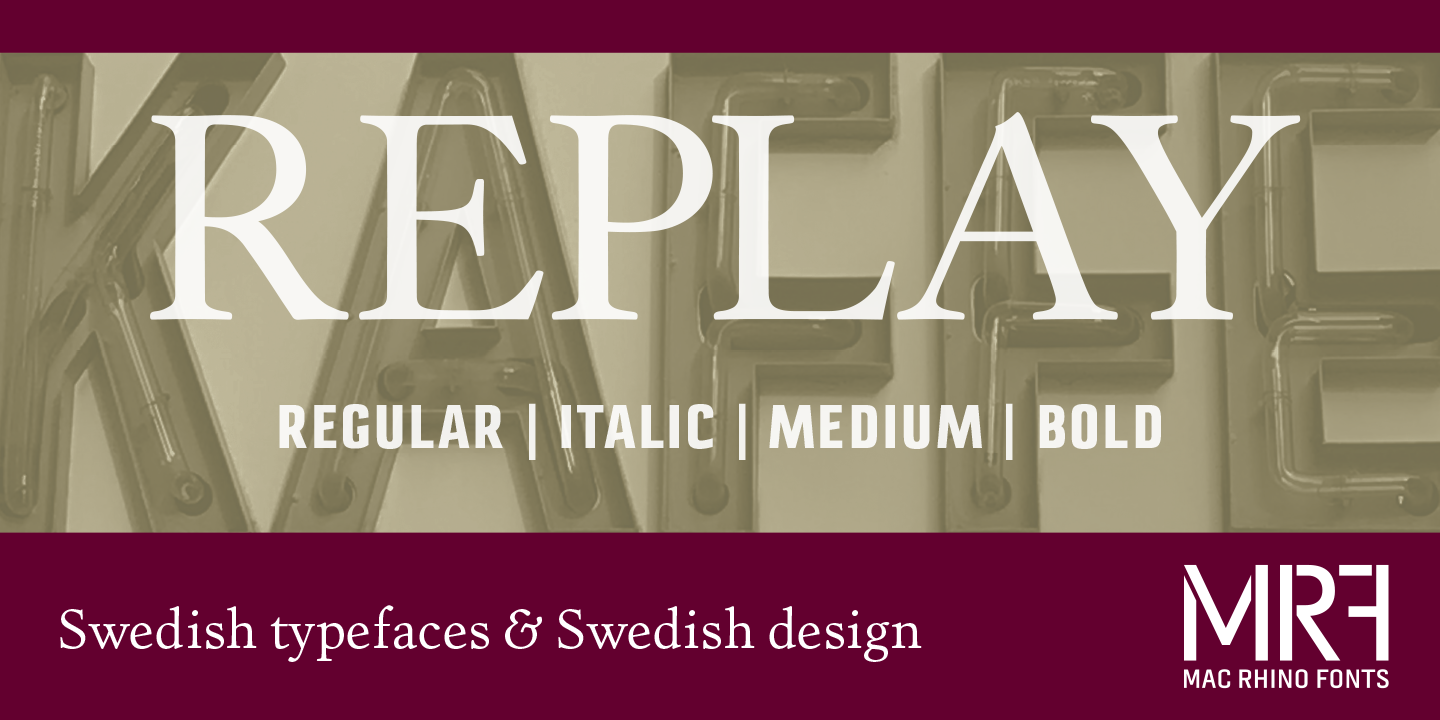
Turn back time in style with Replay Pro Font Free Download, a retro-inspired display typeface designed to capture attention with bold personality and smooth curves. Whether you're working on music branding, vintage posters, apparel design, or nostalgic packaging, Replay Pro Font delivers that perfect blend of old-school charm and modern versatility.
Replay Pro stands out with its groovy letterforms and rhythmic flow, making it ideal for projects that aim to evoke emotion and bring back the golden eras of design. Its unique aesthetic works great for logos, album covers, event flyers, and social media graphics that need a bold, memorable touch.